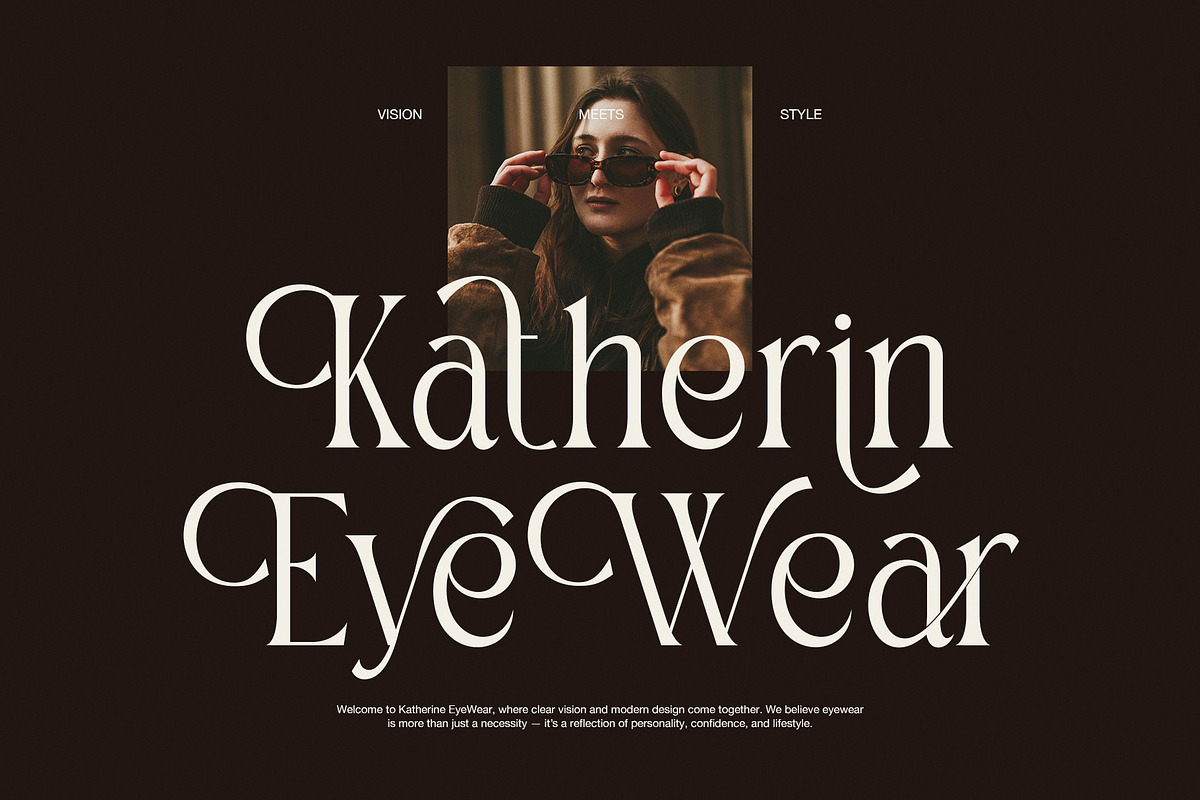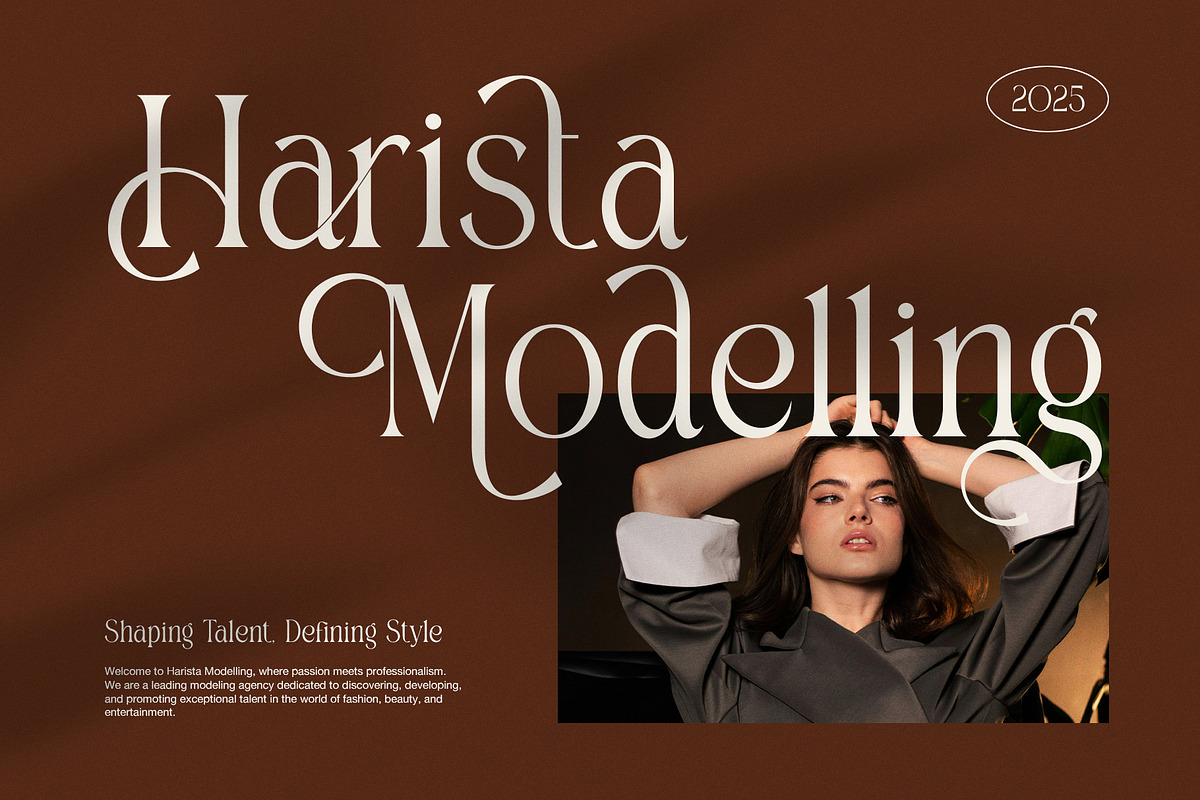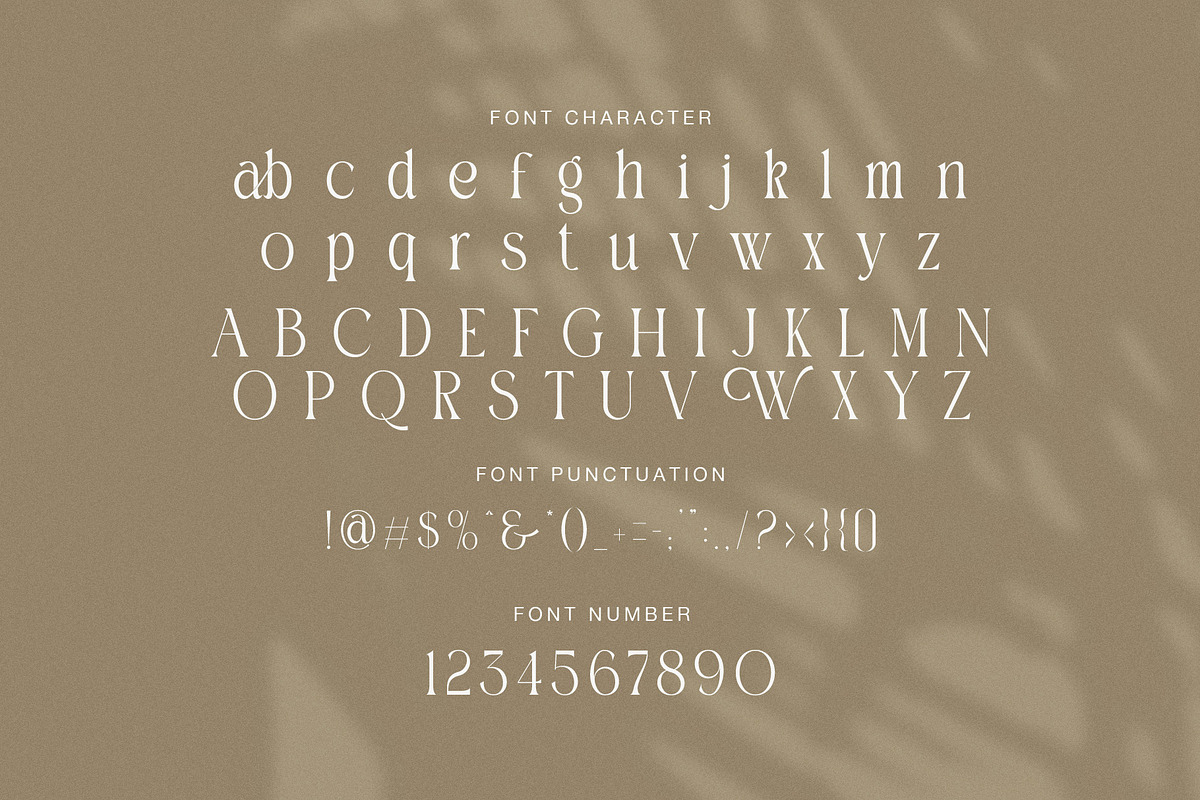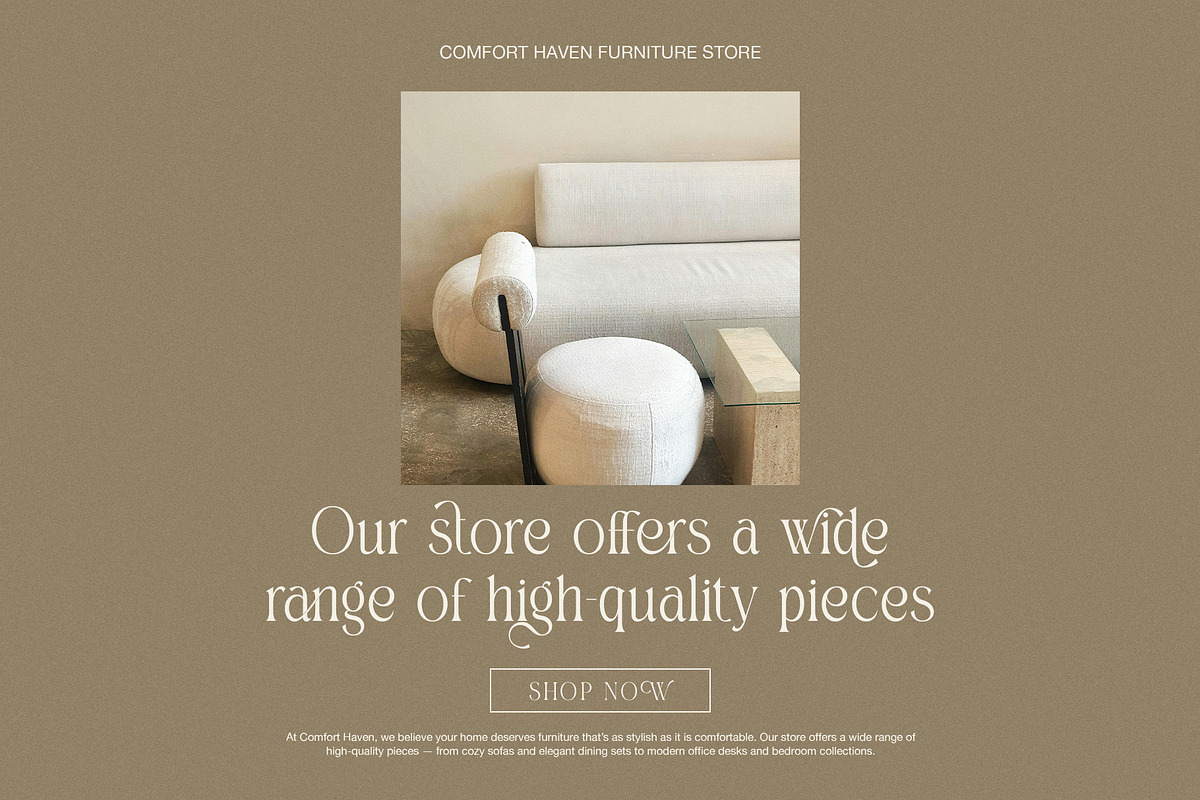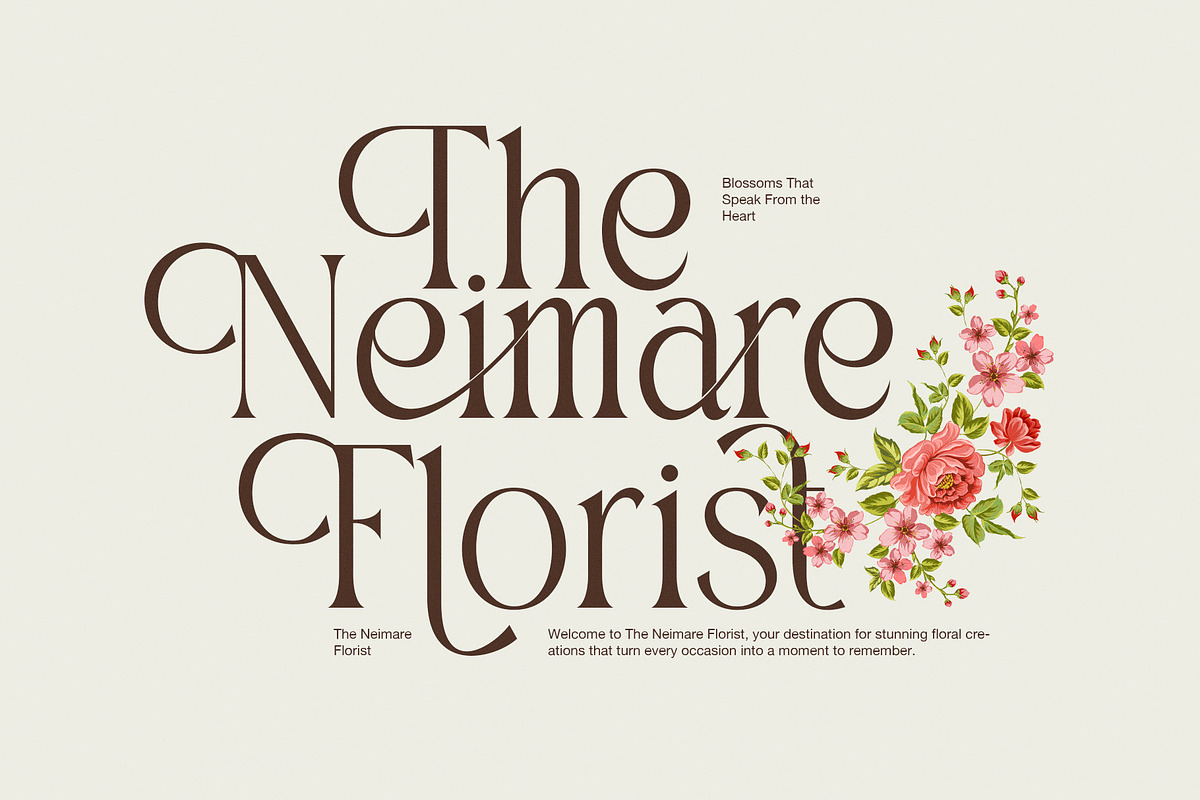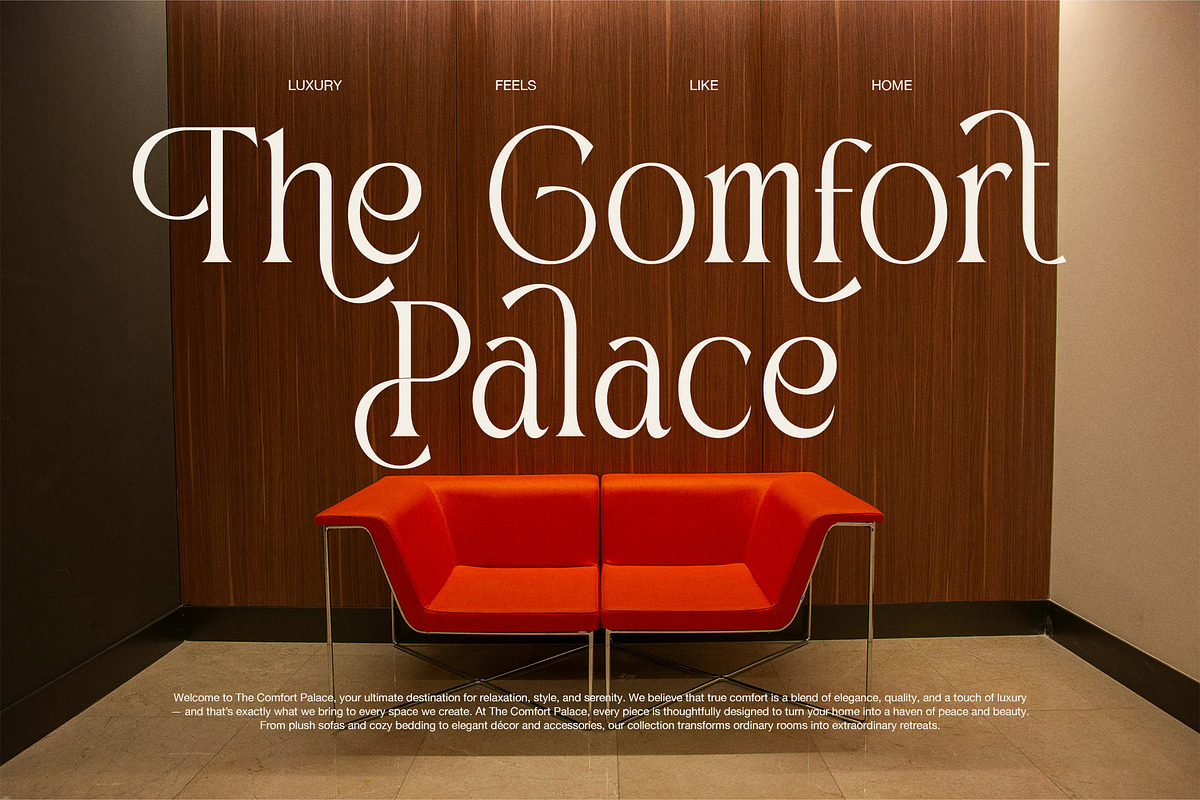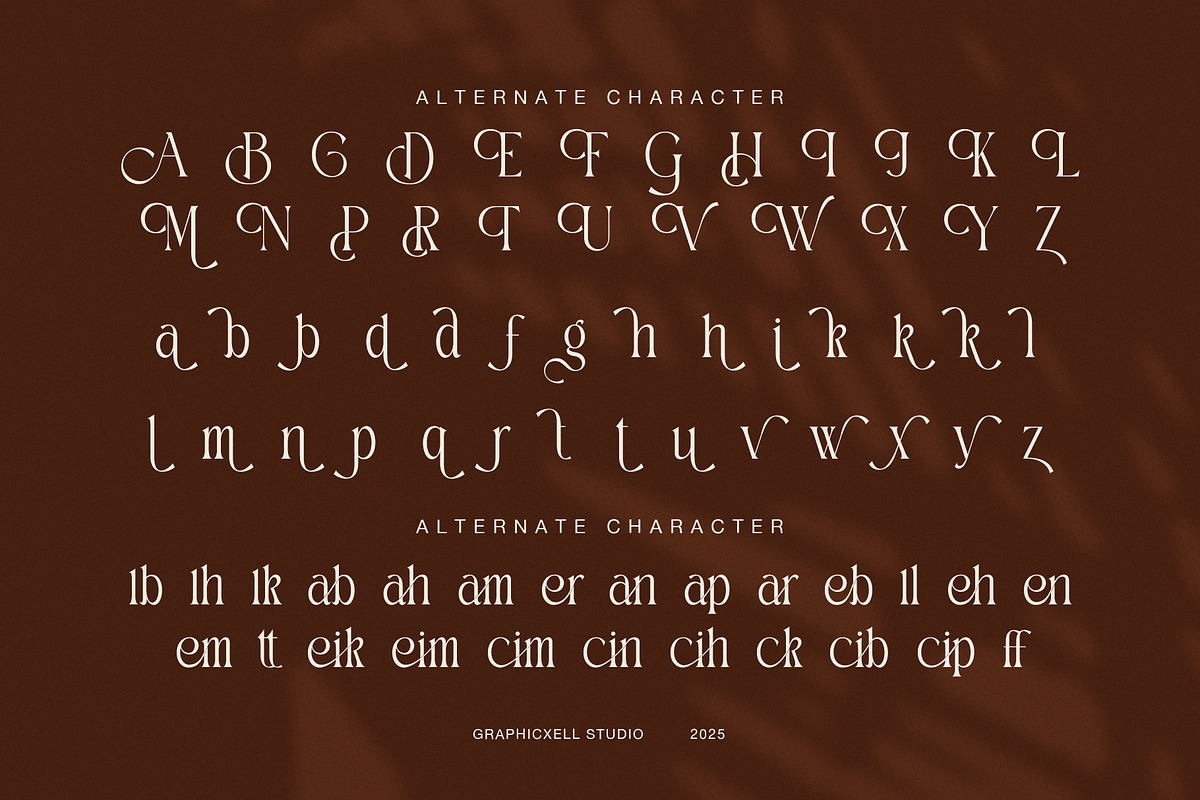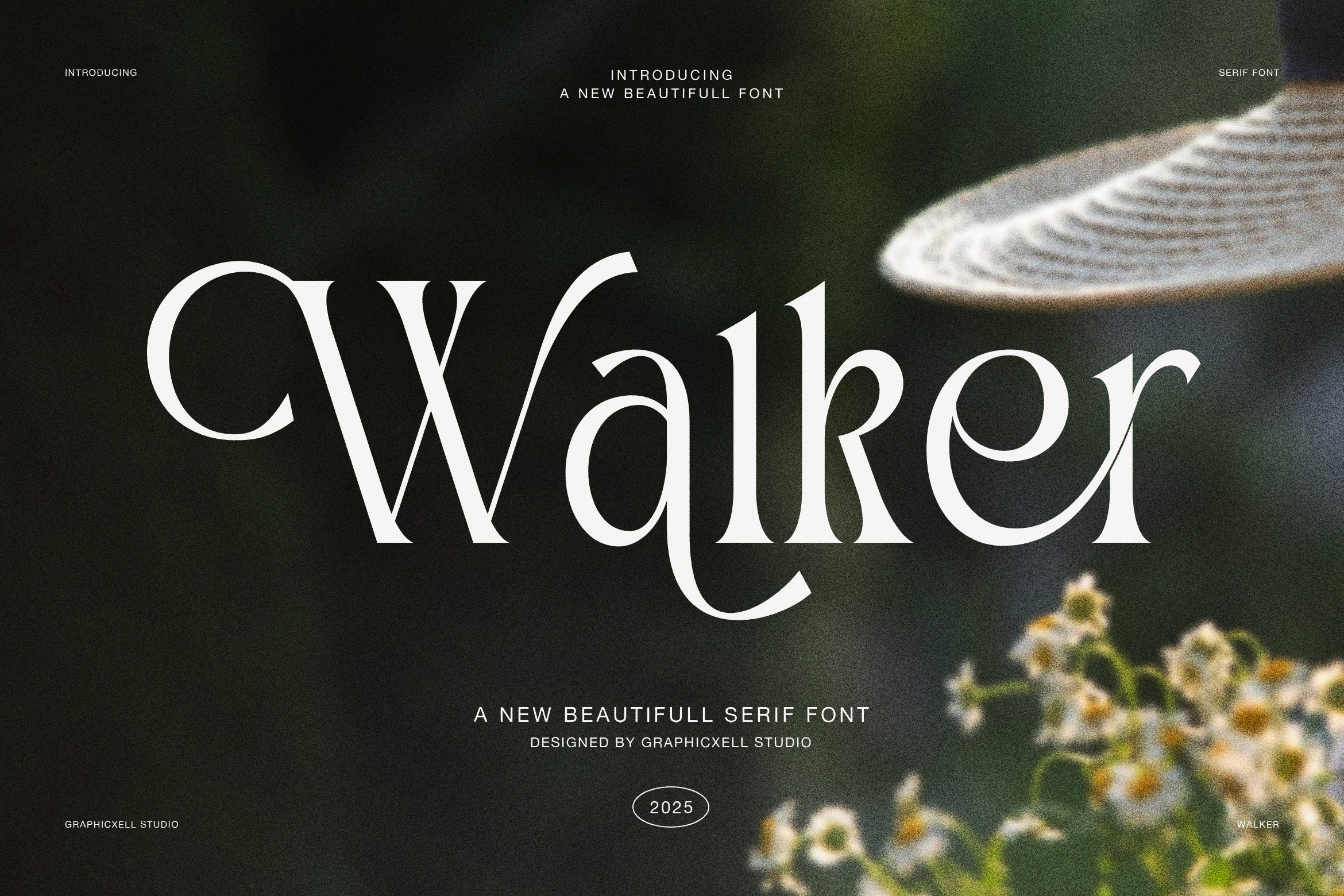
Walker Elegant Serif Font
Walker is an elegant serif font designed to express calm confidence, natural beauty, and modern sophistication. It blends classic serif foundations with smooth curves and refined details, which creates a balanced and timeless character. Because of this harmony, Walker feels both luxurious and approachable in a wide range of design projects.
First of all, Walker features clean letterforms with gentle contrast and flowing strokes. This structure allows text to appear graceful while remaining easy to read. Moreover, the subtle curves add warmth and softness, which helps designs feel inviting rather than rigid. As a result, Walker delivers strong visual impact without overwhelming the layout.
In addition, Walker includes alternate characters and ligatures that give designers greater creative freedom. These alternates allow typography to feel more expressive and custom, especially in headlines and brand names. Therefore, each composition can feel unique while maintaining a consistent style.
Furthermore, Walker adapts beautifully across many design categories. It works perfectly for furniture branding, interior design visuals, fashion campaigns, lifestyle brands, and floral projects. At the same time, it performs well in digital environments such as websites, social media graphics, and online advertisements. Because of its balanced proportions, Walker remains elegant at both large and medium sizes.
Another key strength of Walker is its emotional tone. The font communicates comfort, elegance, and trust. Consequently, it supports storytelling and brand identity while keeping the message clear and refined. Designers can rely on Walker to create layouts that feel premium, natural, and thoughtfully crafted.
Elegant serif style with smooth, modern curves
Alternates and ligatures for expressive typography
Ideal for interior, furniture, and lifestyle branding
Clear readability with refined contrast
Suitable for print and digital projects
Timeless design with a calm, luxurious feel
In conclusion, Walker is more than a serif font. It is a versatile design asset that elevates branding, editorials, and visual storytelling. Whether you are designing for fashion, home décor, florists, or creative studios, Walker helps your work feel warm, elegant, and memorable.